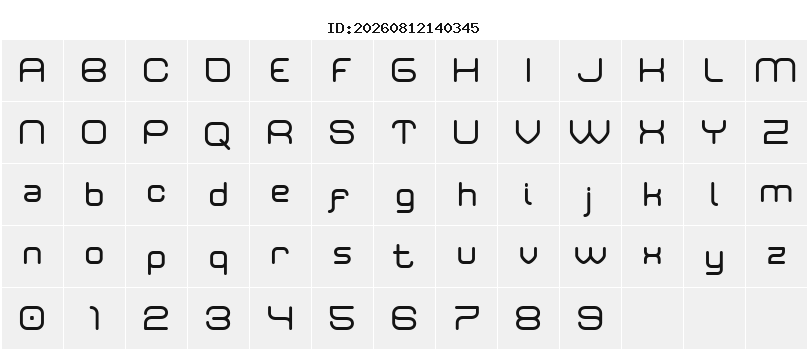
Rivaldizakie Preview
• Font Name: Rivaldizakie
• Font ID: Logodiz: Rivaldizakie Regular: 2013
• Full Font Name: Rivaldizakie
• Version: Version 1.000 2013 initial release
• PostScript Name: Rivaldizakie
• Designer: Yayan Anugrawan
• Manufacturer: Logodiz
About Rivaldizakie.ttf
Rivaldizakie.ttf is a modern, elegant sans-serif font designed for ultimate readability and visual harmony. Perfect for branding, headlines, web design, and print materials.